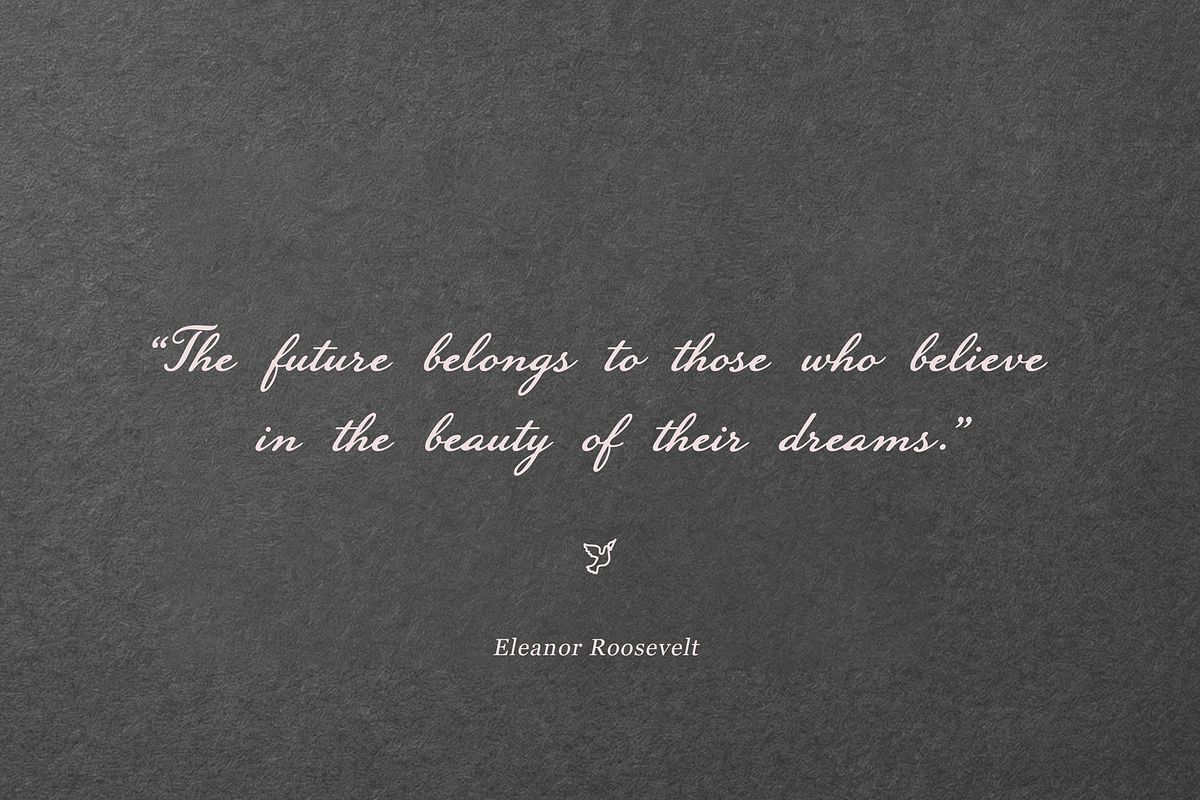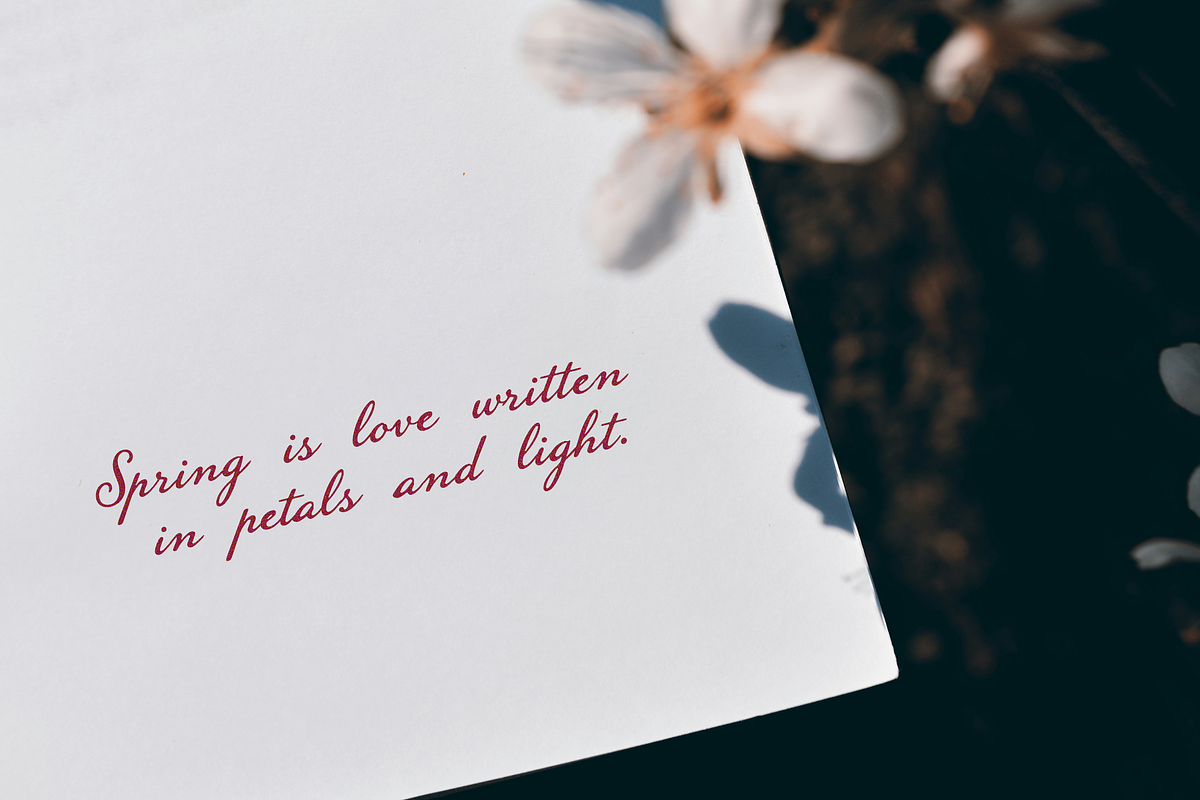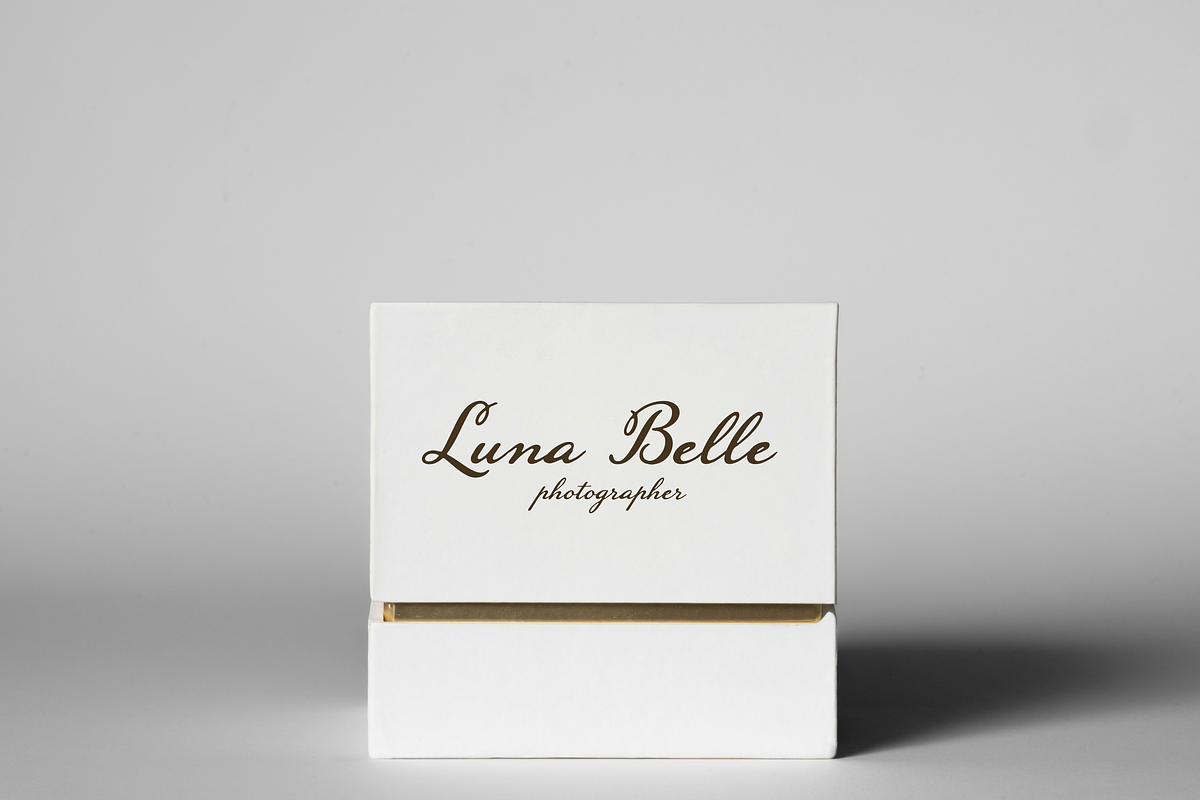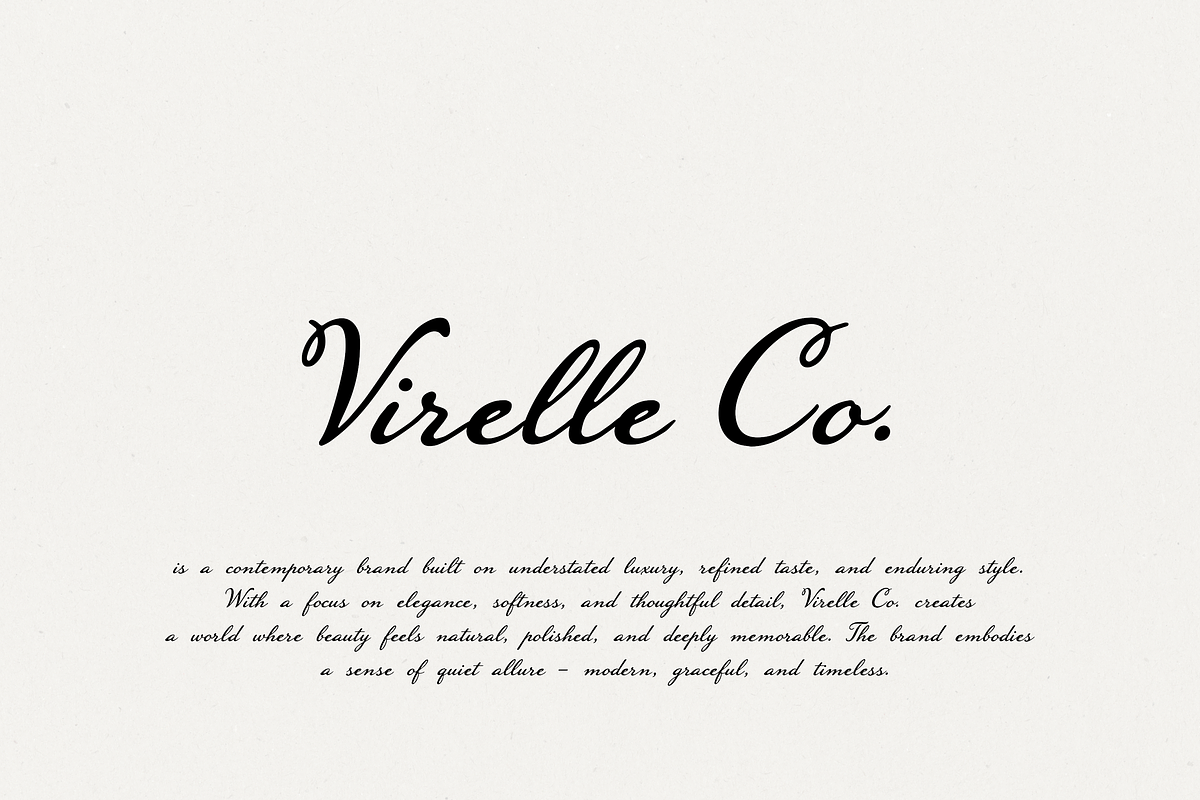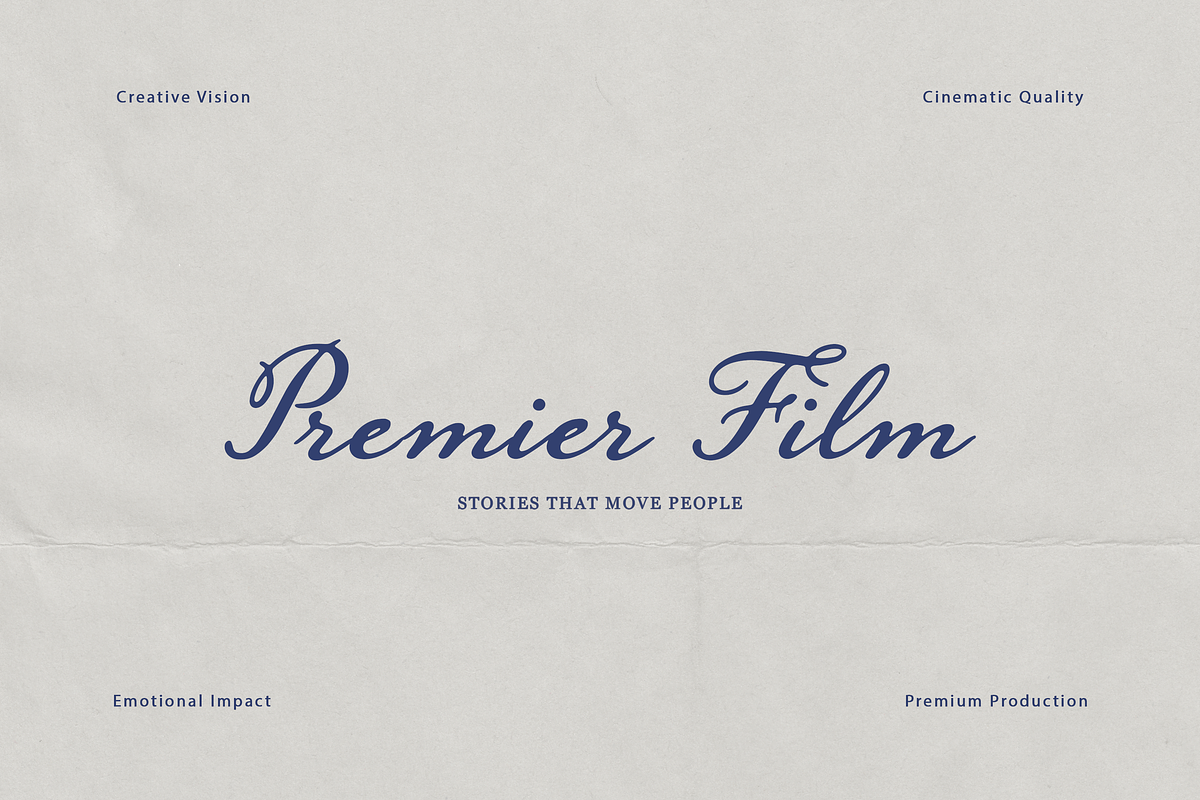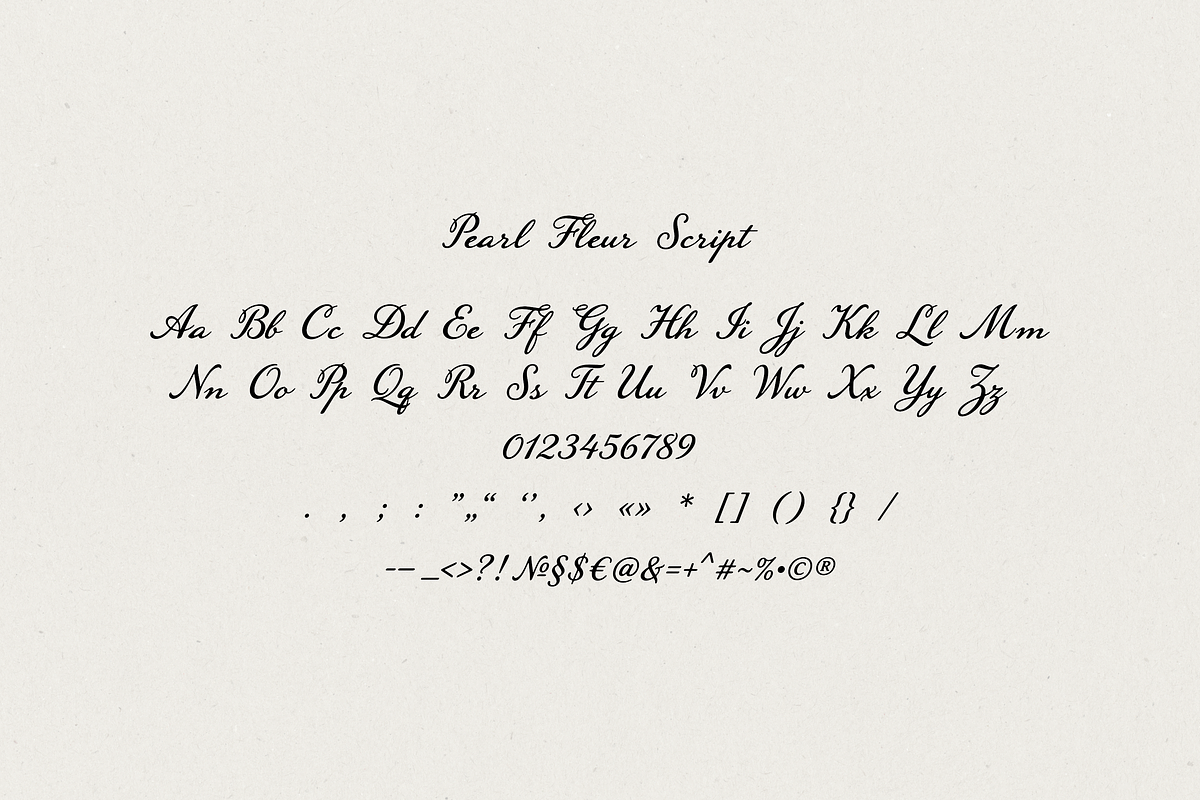
Pearl Fleur – Elegant Script Font
Pearl Fleur is an elegant script font with a romantic and timeless character. Inspired by graceful calligraphy and classic signature lettering, this font features flowing curves, soft swashes, and a refined slanted style that feels both delicate and luxurious.
Perfect for wedding invitations, branding, logos, feminine packaging, beauty products, social media, quotes, cards, and other creative projects, Pearl Fleur adds a sophisticated and charming touch to any design.